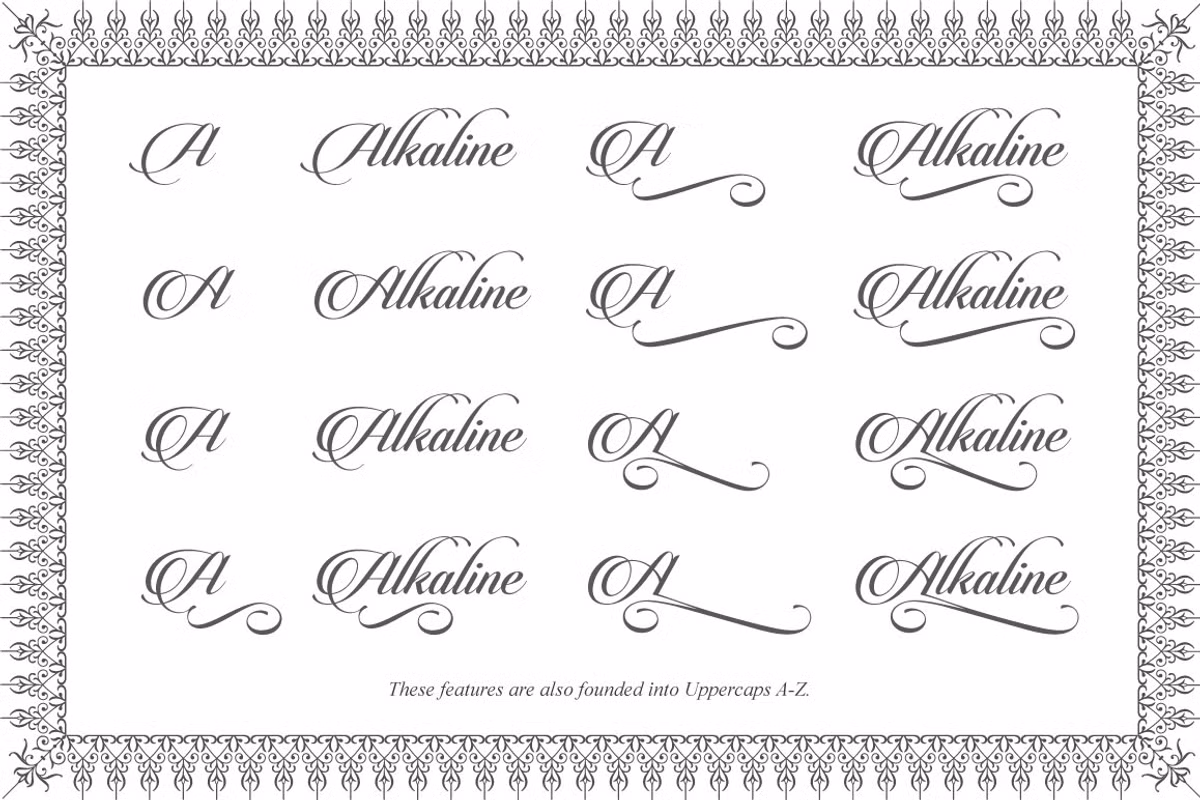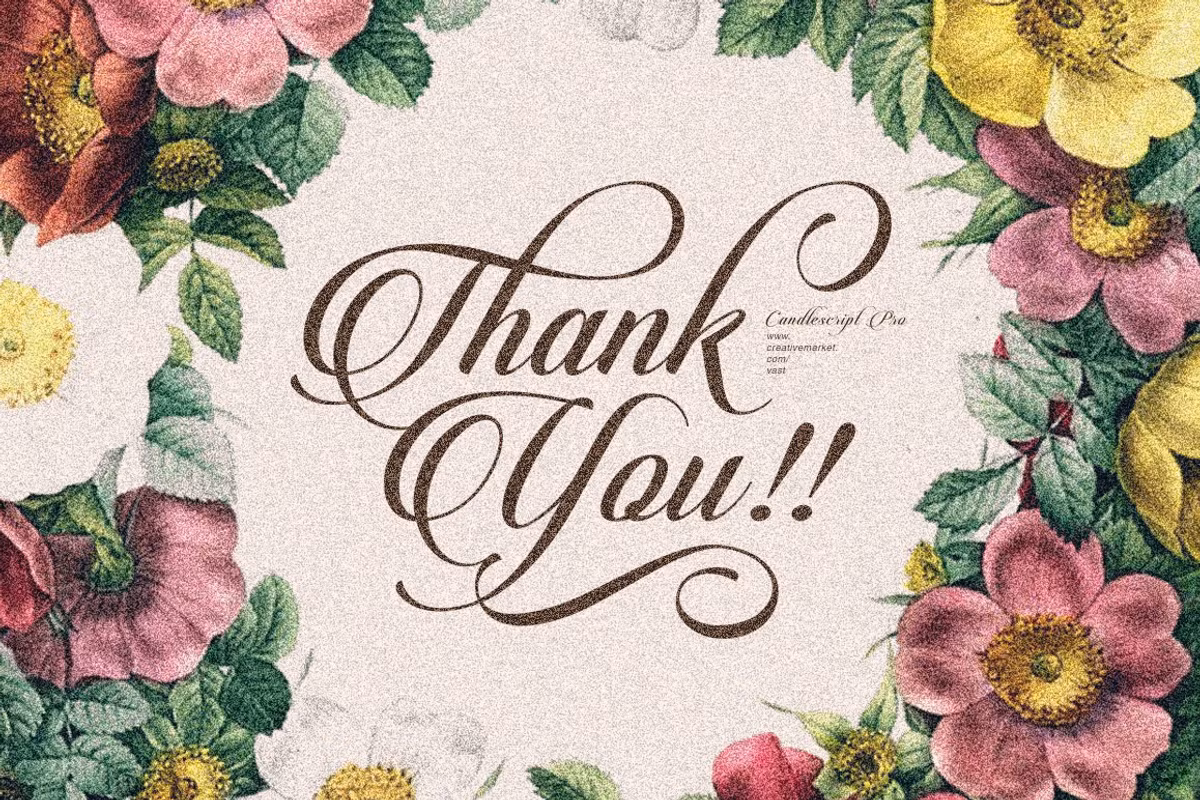
Candlescript Pro: Versatile Script Typeface for Creative Design
Introduction to Candlescript Pro
The Candlescript Pro font is really something special. It was created by M Fairuzulhaq, also known as Ve, and it’s a script typeface that can be used in lots of different ways. Ve’s company, Vast, is an independent type foundry based in Semarang, Indonesia, and they launched Candlescript Pro back in August 2014. Since then, it’s become super popular among designers all around the world.
One of the things that makes Candlescript Pro so great is its unique script and italic style, which makes it perfect for things like logos, custom fonts, titles, headings, and ads. It’s a really versatile font that can add a touch of elegance to just about any design project. Whether you’re working on a fancy logo or just need a font that will make your headings stand out, Candlescript Pro is definitely worth considering.
With its beautiful script style and italic flair, it’s a great choice for anyone looking to add a little extra something to their designs.
The Candlescript Pro font has a really detailed and smooth look to it. It’s a script font, which makes it look fancy and creative. This means it’s good for using in both formal and casual designs.
The person who made the font paid close attention to each character, so it’s still easy to read even though it looks nice. The font also has a bit of an italic feel, which makes it more fun to use in different typographic layouts. Overall, the Candlescript Pro font is a great choice when you want to add some style and flair to your designs.
It’s perfect for making a good impression, whether you’re working on a formal project or something more casual. The way the characters flow together is really nice, and it adds a touch of sophistication to any design.
Character Set and Glyphs
Candlescript Pro boasts an impressive character set consisting of over 2850 glyphs. This extensive collection includes uppercase and lowercase letters, small caps, numerals, fractions, punctuation marks, and diacritical marks.
The richness of this font is further enhanced by the inclusion of various OpenType features such as:
- Standard Ligatures
- Discretionary Ligatures
- Stylistic Alternates
- Contextual Alternates
- Titling Alternates
- A myriad of beautiful swashes
This means that designers can play around with the font in different ways, so each project can have its own special look and feel when it comes to the text.
Use Cases for Candlescript Pro
The Candlescript Pro font is really versatile, which makes it perfect for a lot of different uses. Let’s take a look at some of the most popular ways to use it.
- Logotypes: Have a really nice, fancy writing style that’s great for making a brand stand out and be remembered.
- Custom Typeface: Ideal for unique design projects that require a personal touch.
- Advertising: The font’s eye-catching characteristics make it suitable for promotional materials, banners, and social media graphics.
- Event Invitations: Candlescript Pro can add a sophisticated flair to wedding invitations, party flyers, and corporate event announcements.
- Editorial Design: It’s a great choice for magazine covers, feature articles, and book titles, where a touch of elegance is desired.
Candlescript Pro isn’t just a font you use on its own, it also works really well with lots of other fonts, which can make your design look even better. So, here are a few ideas for fonts that go well with Candlescript Pro:
- Serif Fonts: Pair Candlescript Pro with serif fonts like Georgia or Times New Roman for a classic, sophisticated look.
- You can pair it with simple, modern fonts like Helvetica or Arial to get a look that’s up to date and balanced. This mix of old and new creates a nice contrast that works well together.
- Slab Serif Fonts: Using slab serif fonts such as Rockwell or Arvo can add a playful contrast to the fluidity of Candlescript Pro.
When you’re choosing fonts to use together, think about how heavy or light they are and the feeling they give. You want to make sure they work well together and create a nice balance in your design.